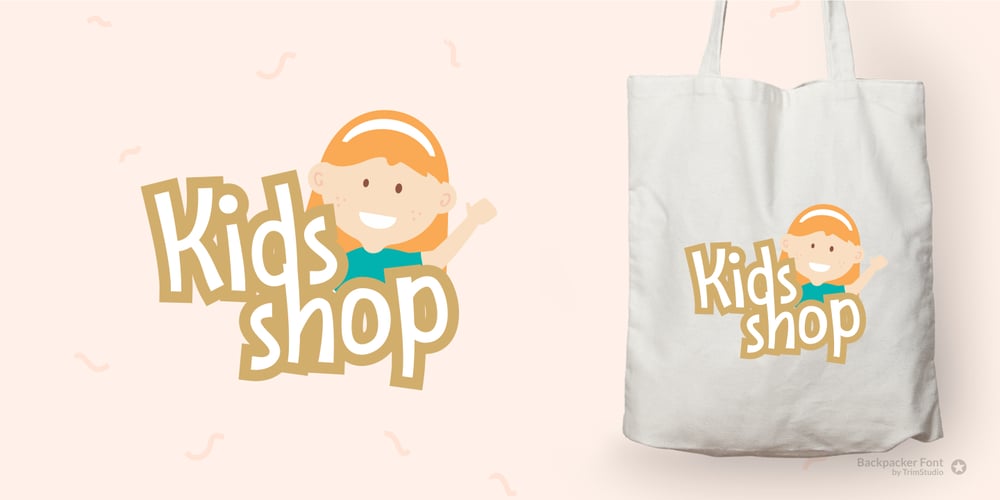
Backpacker Font Family was designed by Deri Kurnia and published by Trim Studio. Backpacker contains 1 styles and family package options. Backpacker is a playful display font with an incredibly cheerful theme. Perfect for any school-themed crafts!